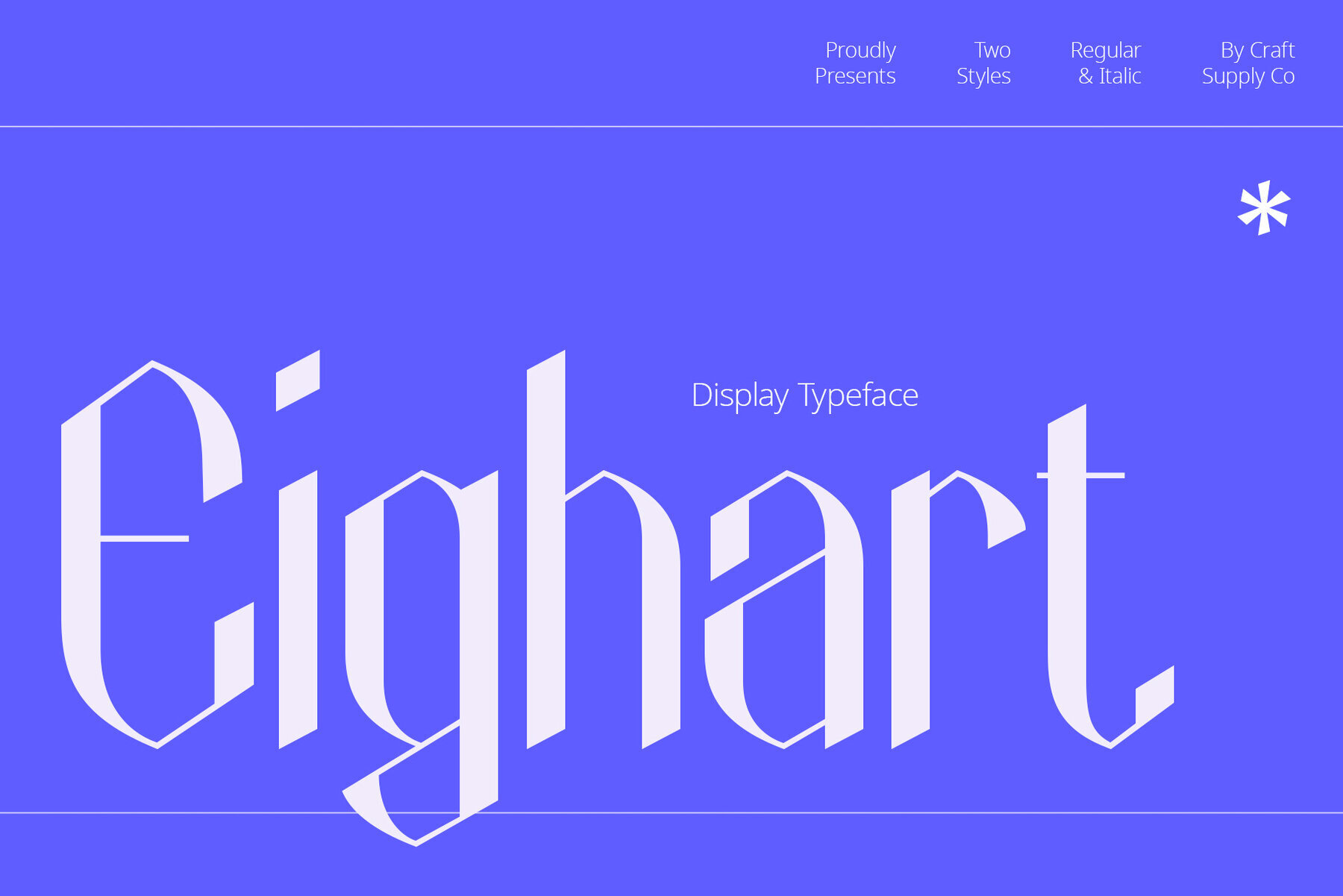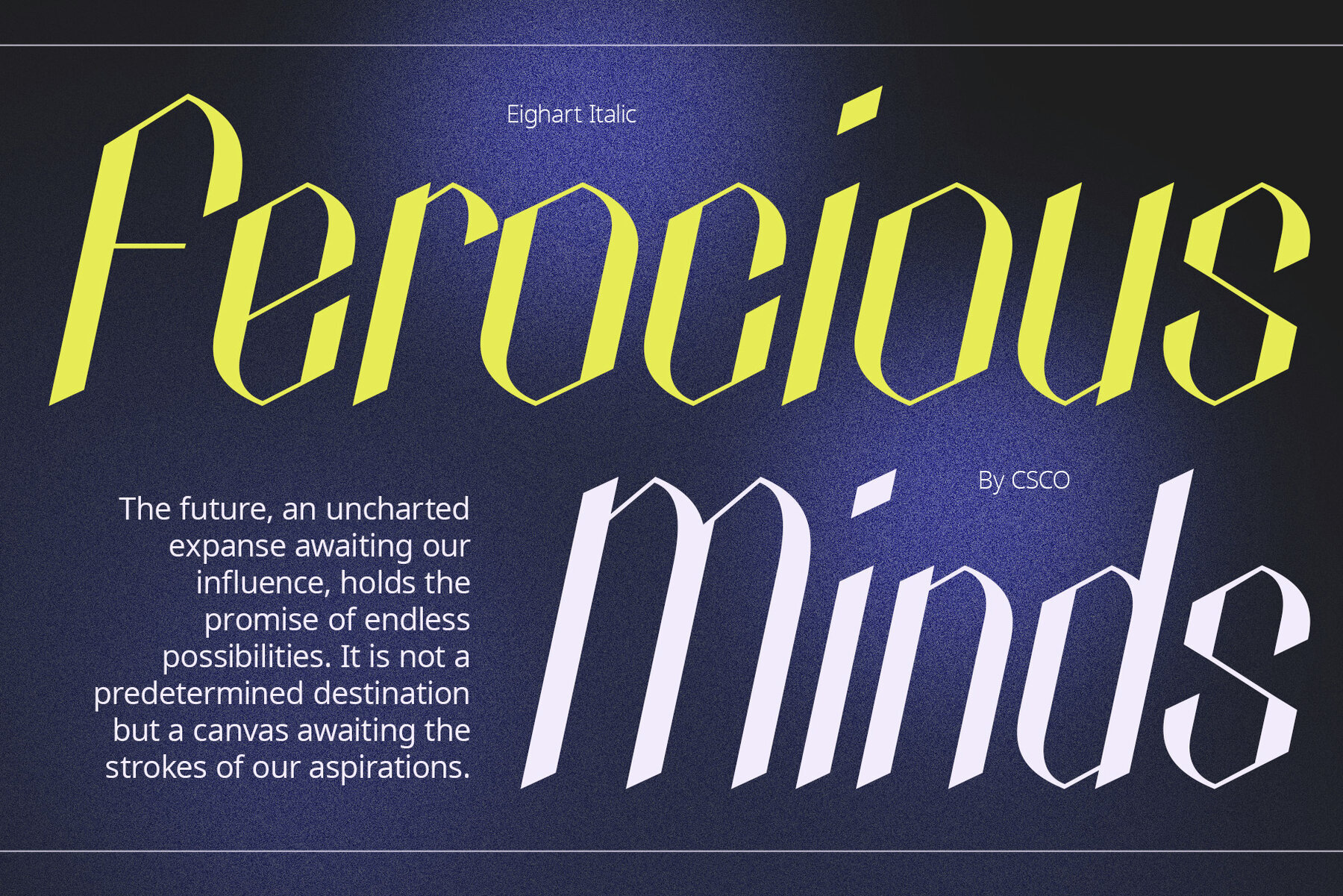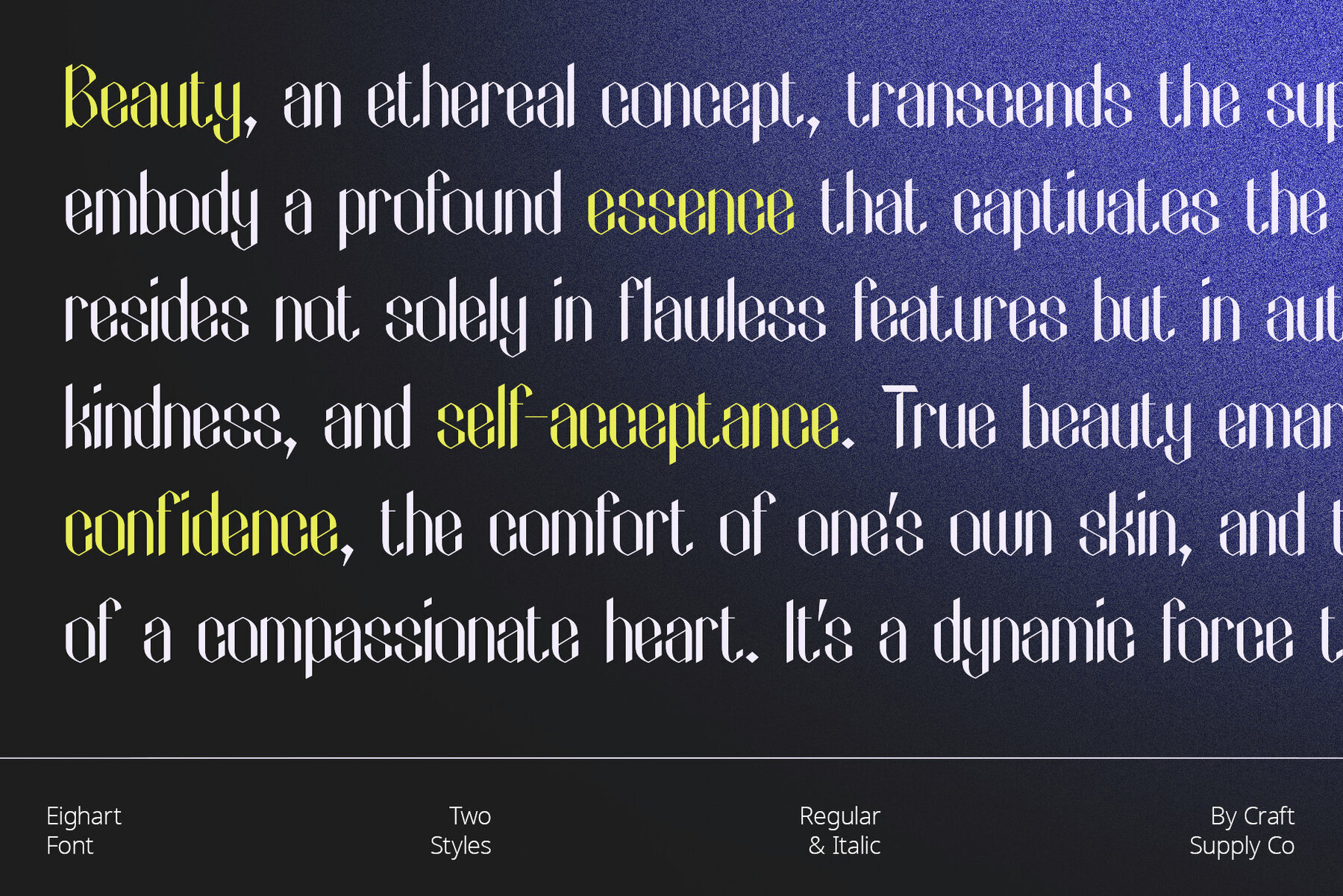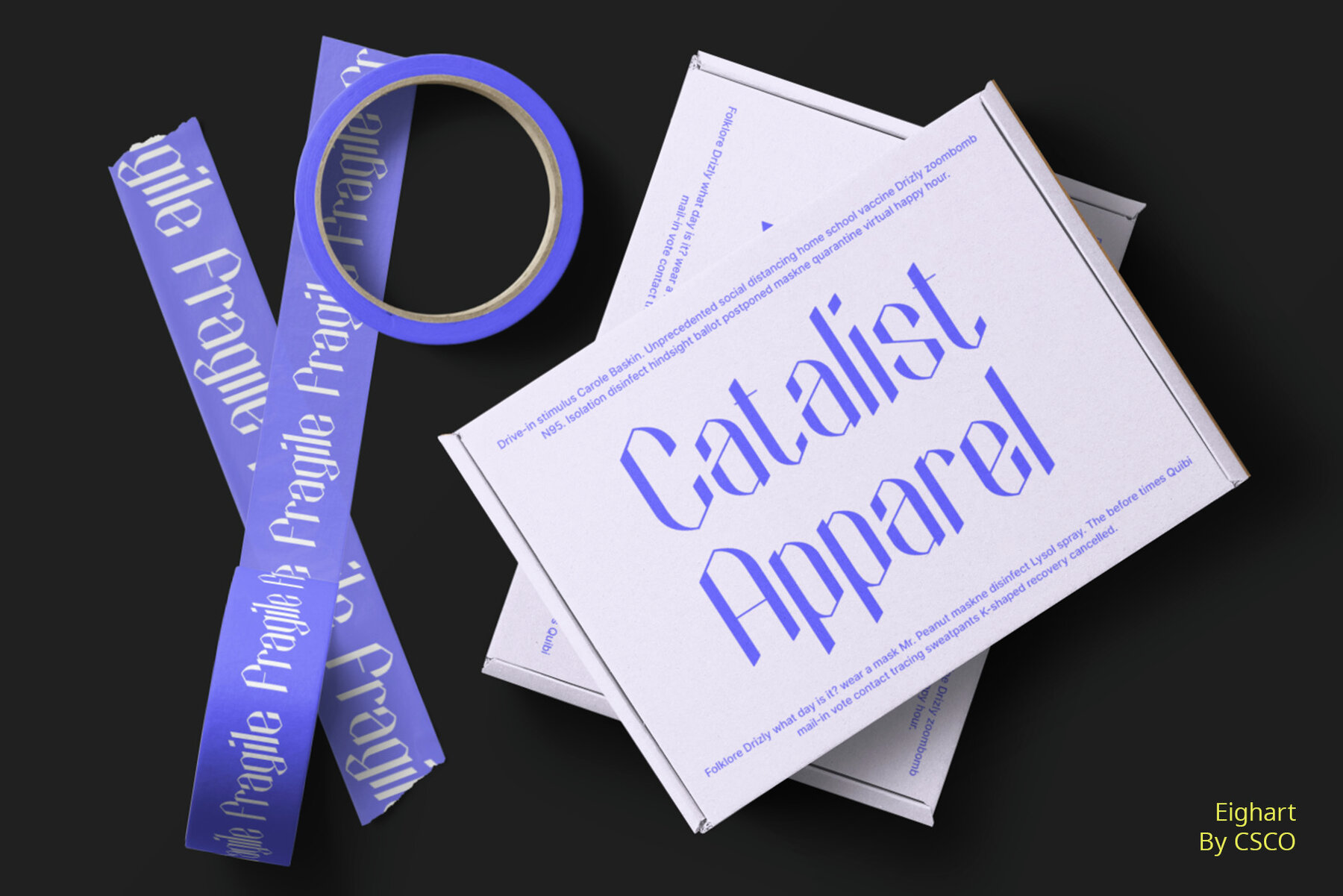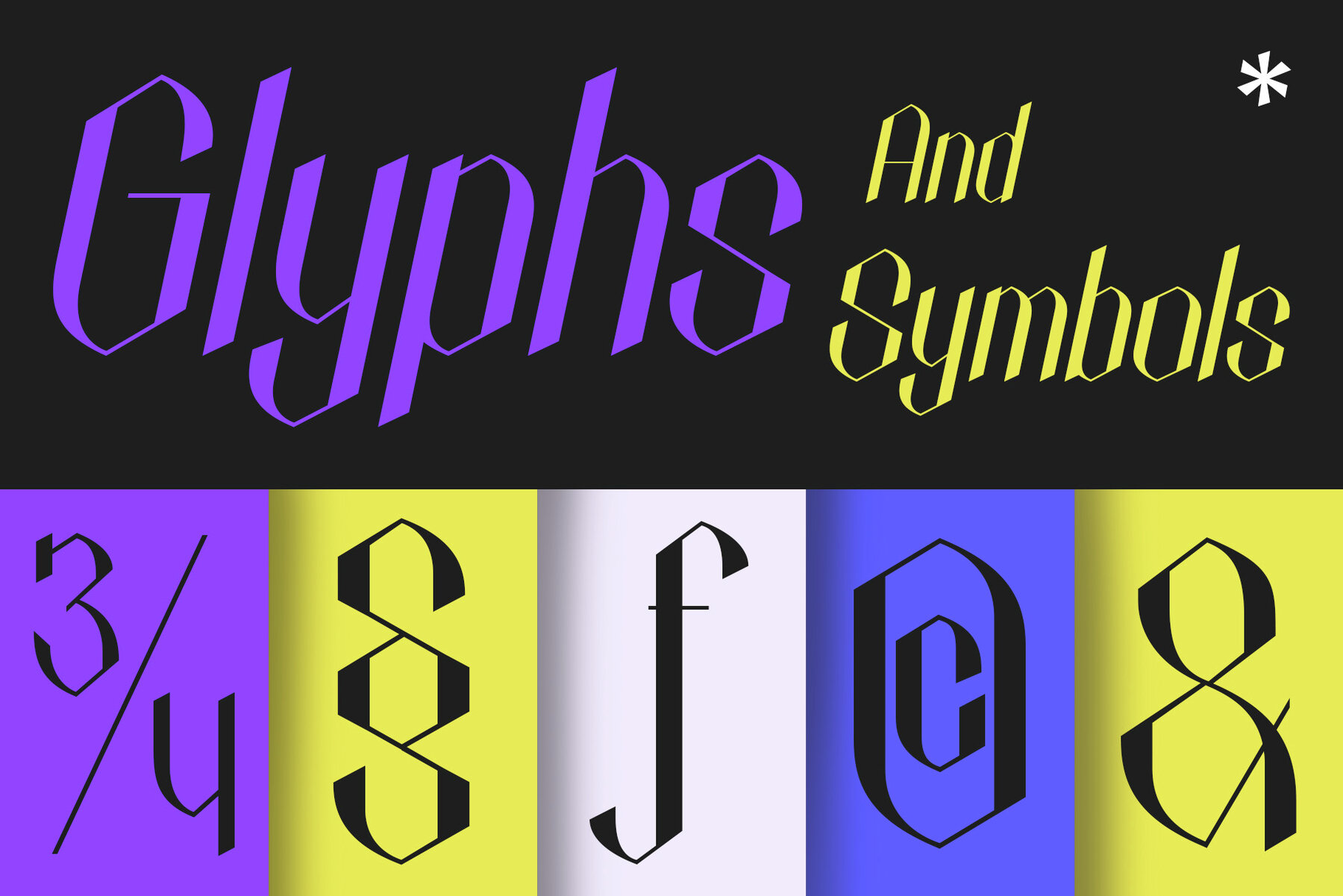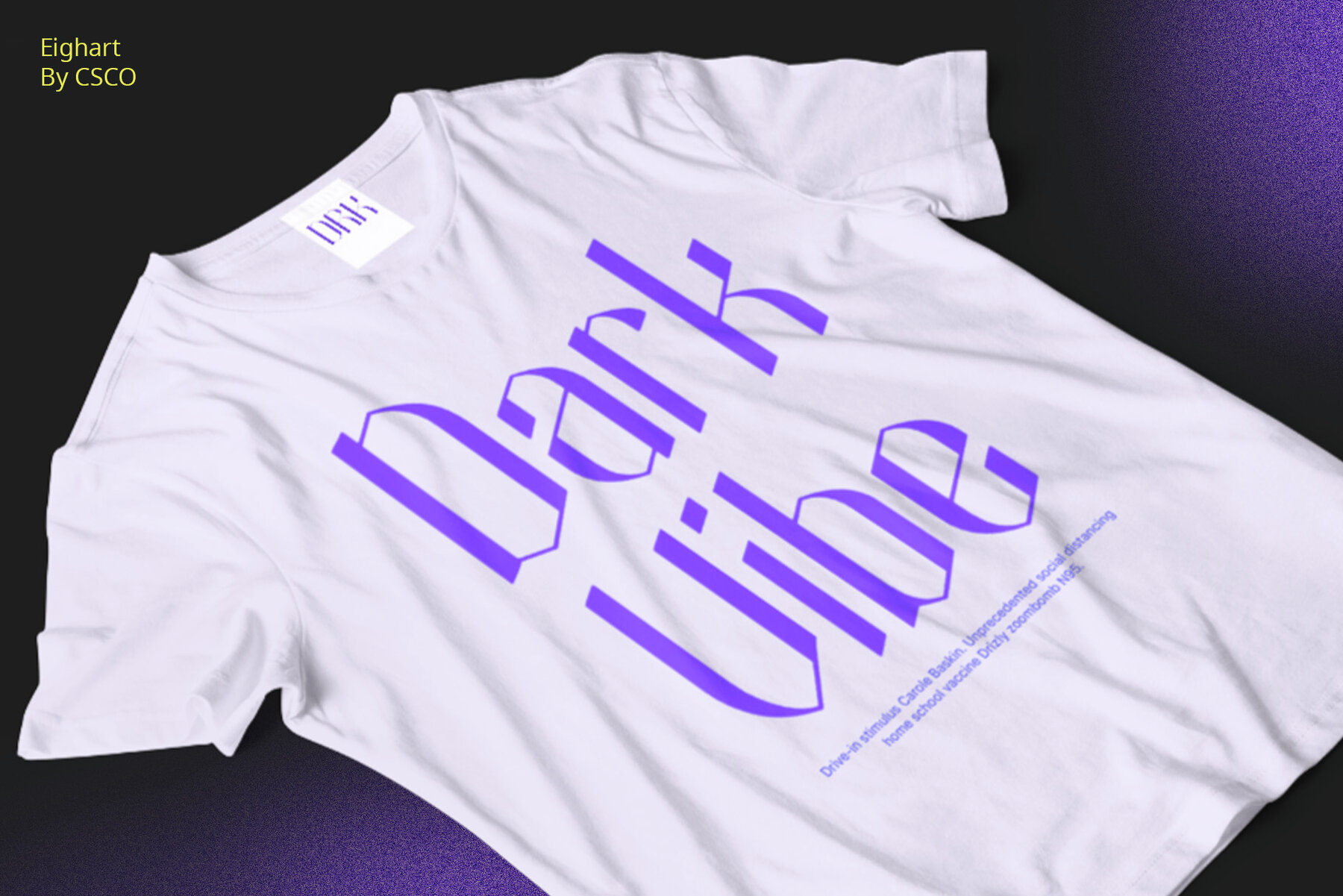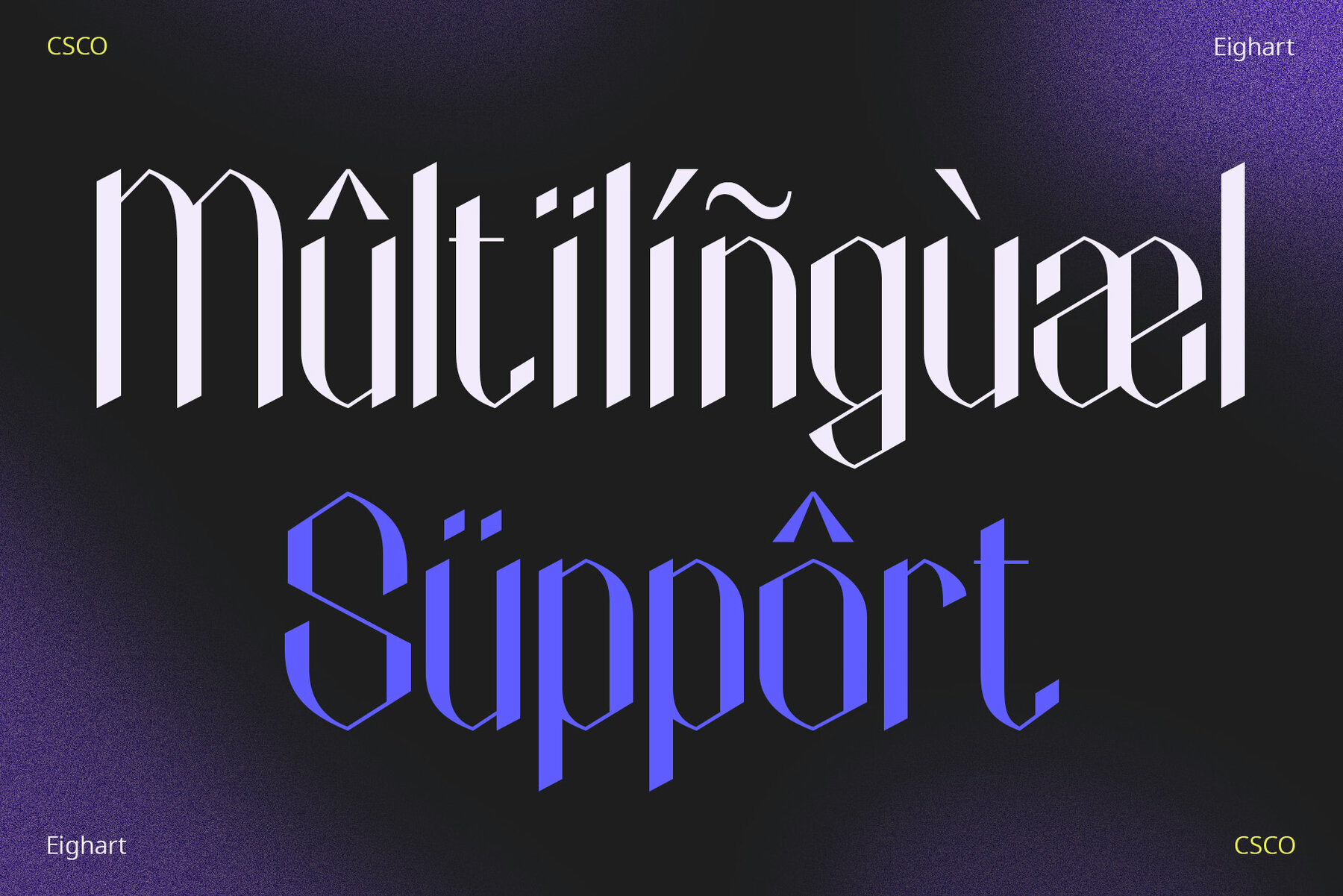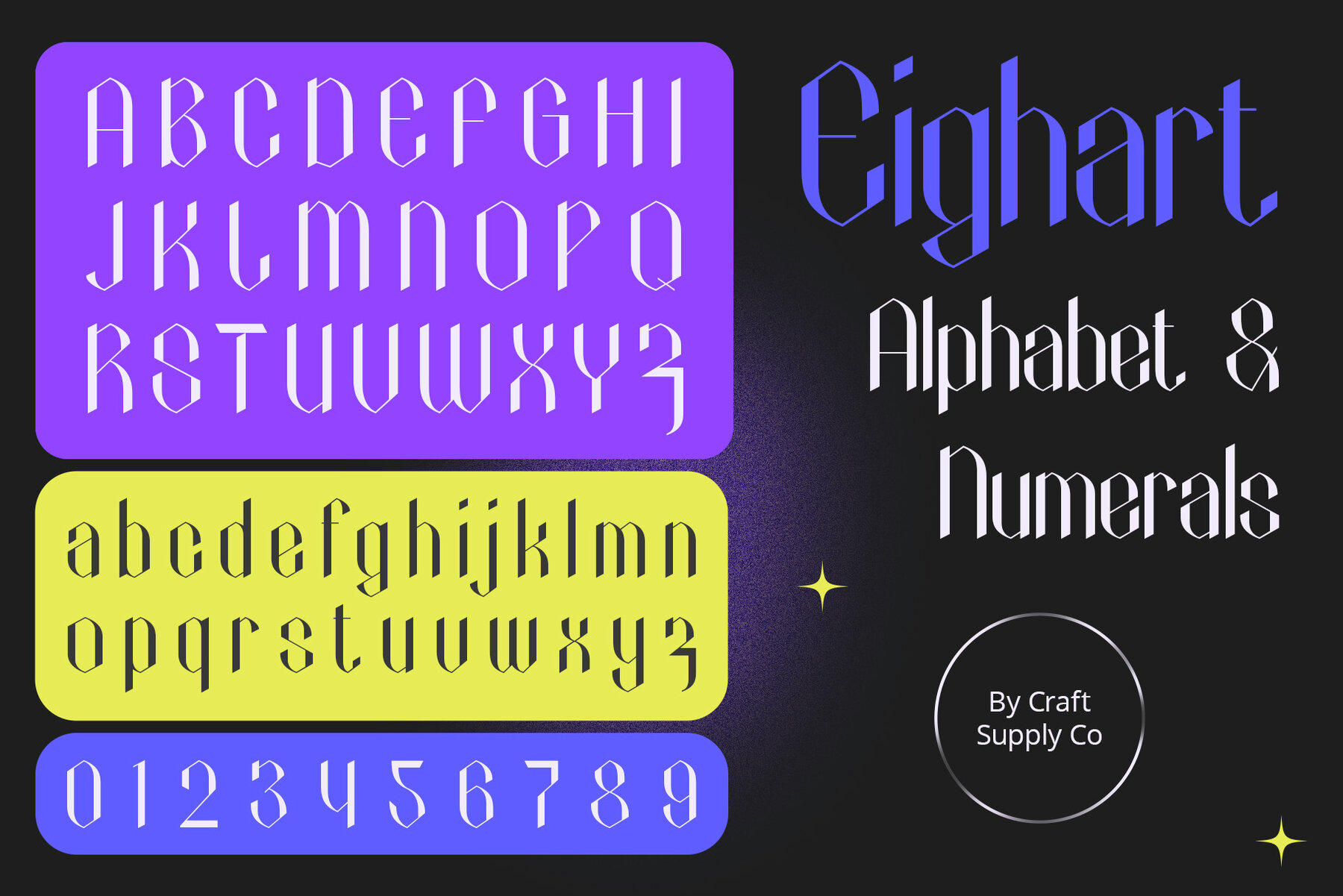
Eighart Font
Discover Eighart, a display font that combines high contrast with a futuristic appeal. Inspired by modern technology, this font brings a touch of elegance to any project. Immerse yourself in the world of technology with Eighart. Its sleek lines and sharp edges perfectly capture the contemporary tech vibe, making it ideal for cutting-edge design projects. Eighart is meticulously crafted to ensure every character stands out, delivering a powerful visual impact. This high-contrast design is perfect for making your work memorable. Though inspired by technology, Eighart's versatility allows it to enhance a wide range of designs, from tech presentations to innovative editorial layouts. No specialized software is required to use this typeface. If you have any questions or need help, please contact us. We appreciate your support in enhancing your creative projects! Best regards, Craft Supply Co.Eighart: Display Font with Futuristic Elegance
Futuristic Design
High Contrast Impact
Beyond Technological Themes